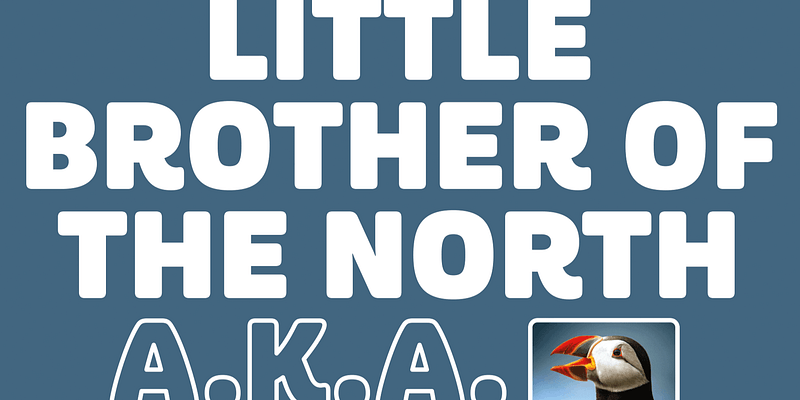
Puffin Display Soft Font Free Download is a cheerful, rounded display typeface designed to bring warmth, friendliness, and playful charm to your typography. With its soft edges, bold forms, and bubbly personality, this font is perfect for children’s books, toy packaging, food branding, apps, and any design that calls for a fun and approachable look.
Puffin Display Soft Font Free Download features wide letterforms with smooth curves and a soft baseline bounce that gives it an inviting, modern-retro feel. The font’s thickness and rounded terminals add to its visual comfort, making it ideal for headlines, logos, signage, or short bursts of text in digital or print media.
This typeface works beautifully in cheerful, lifestyle-oriented design environments and pairs well with minimalist sans-serifs or handwritten accents for added flair.
Rounded, radiant, and irresistibly friendly—Puffin Display Soft brings a smile to your typography with its soft tone and standout personality.